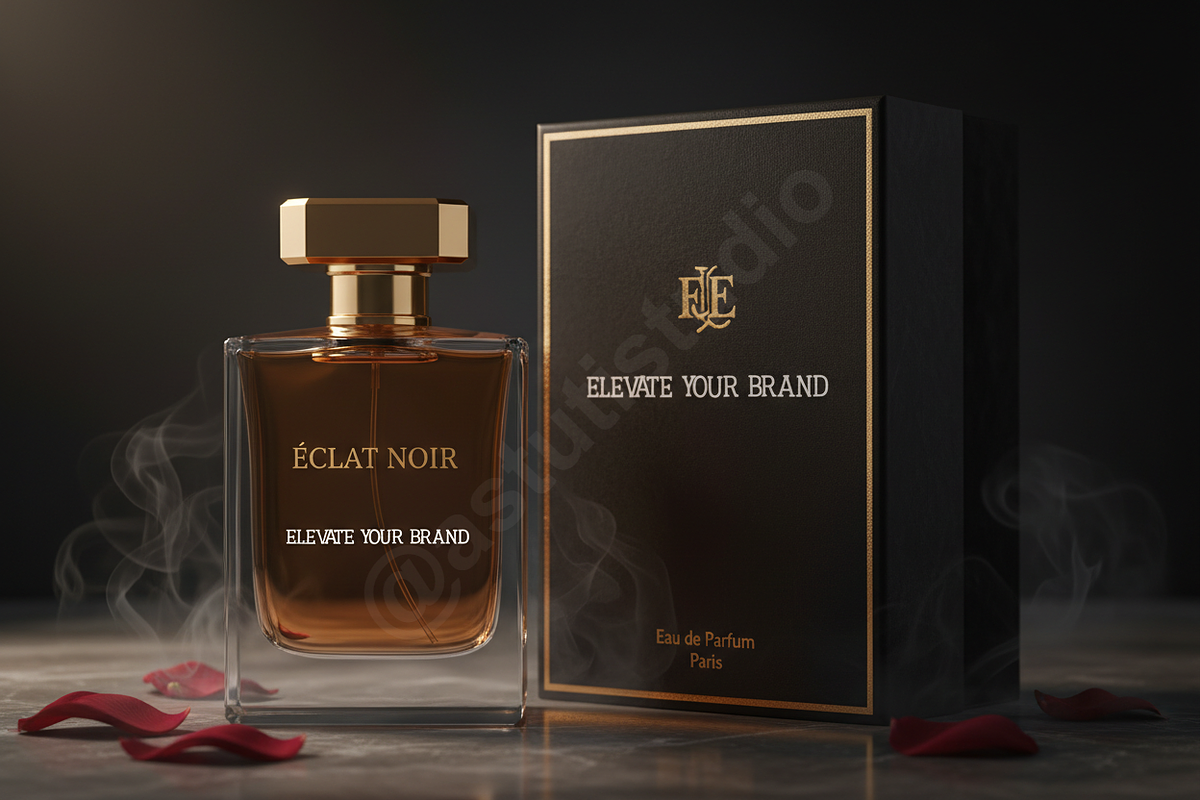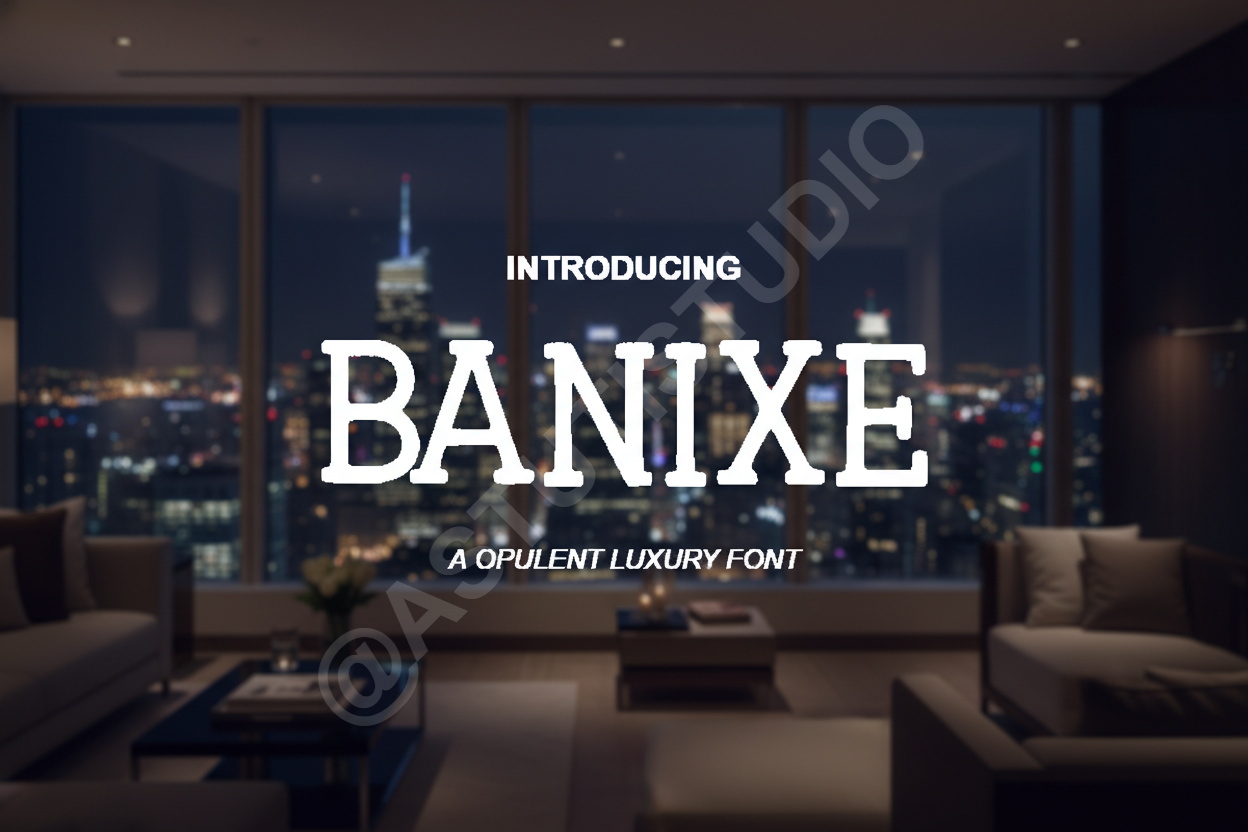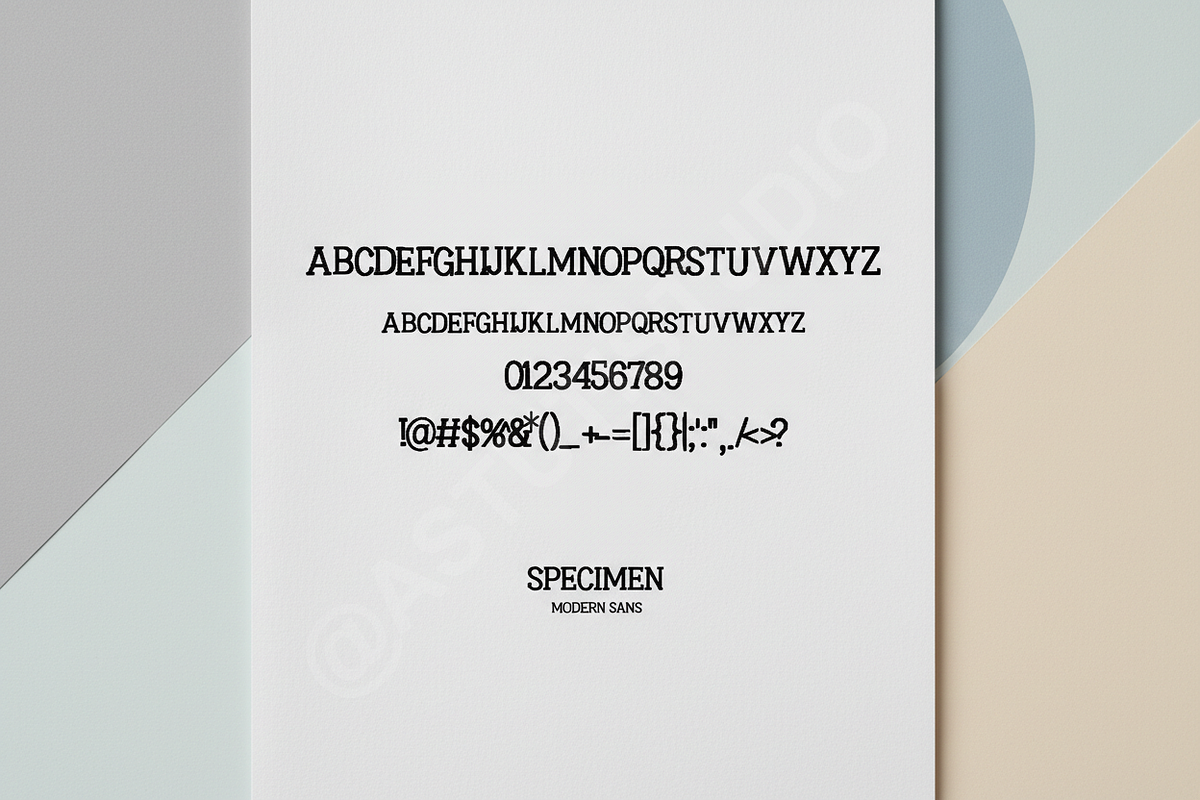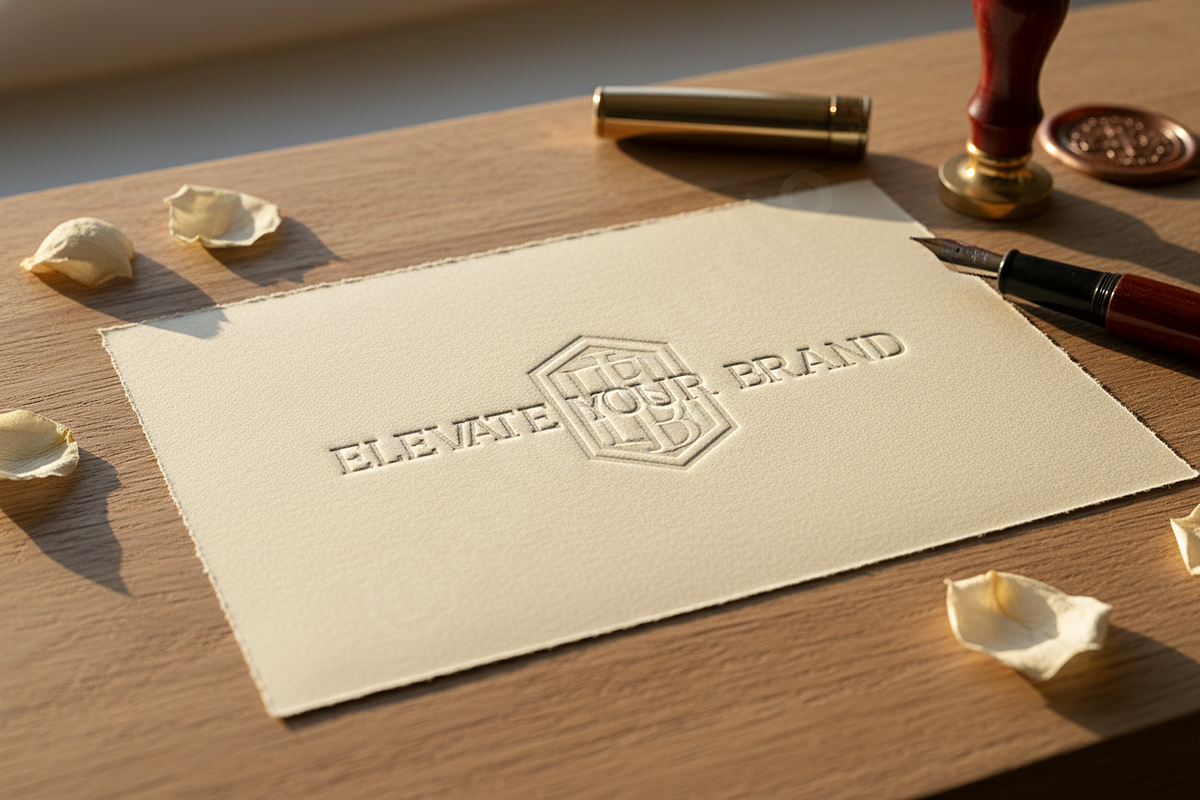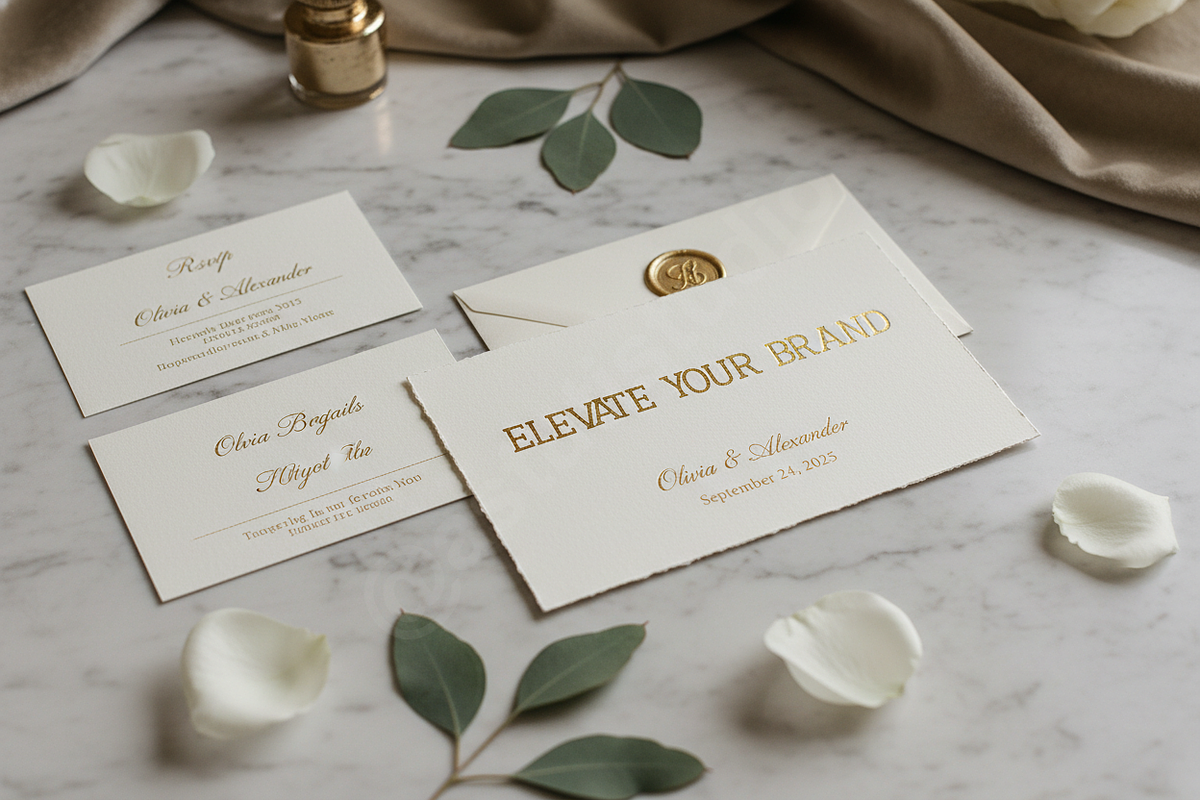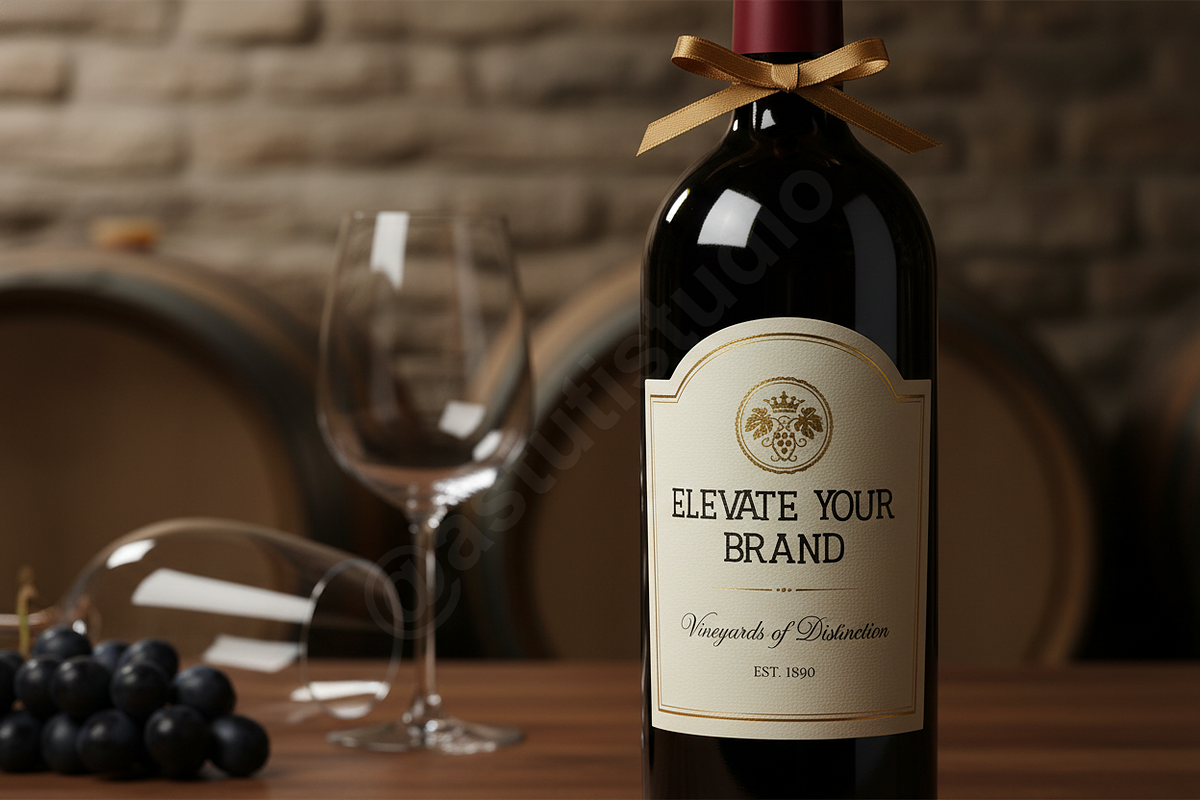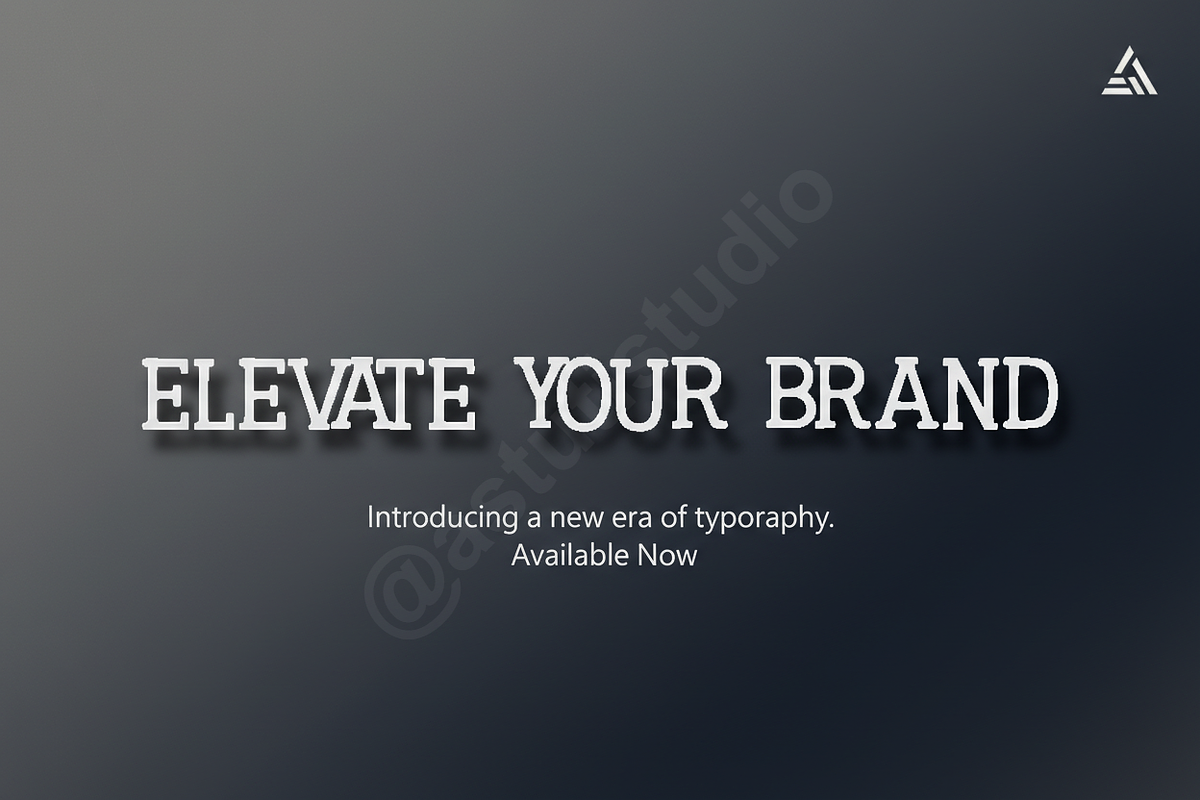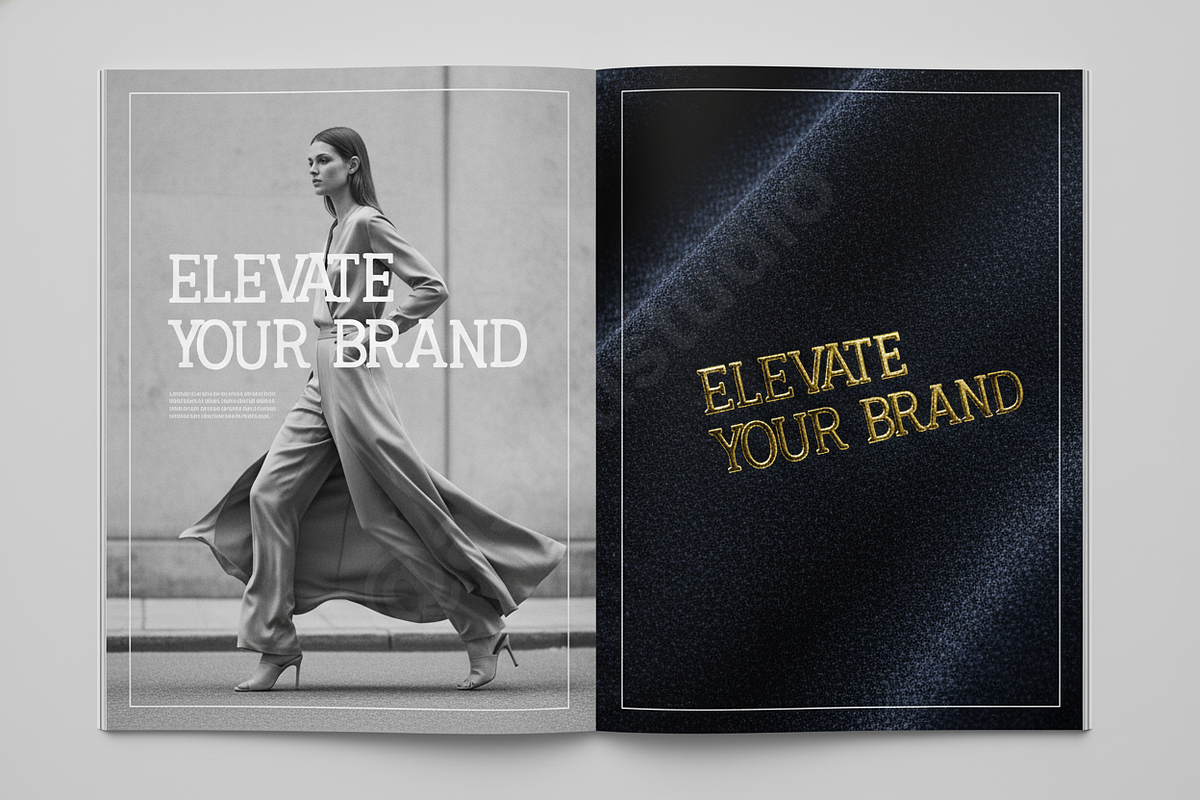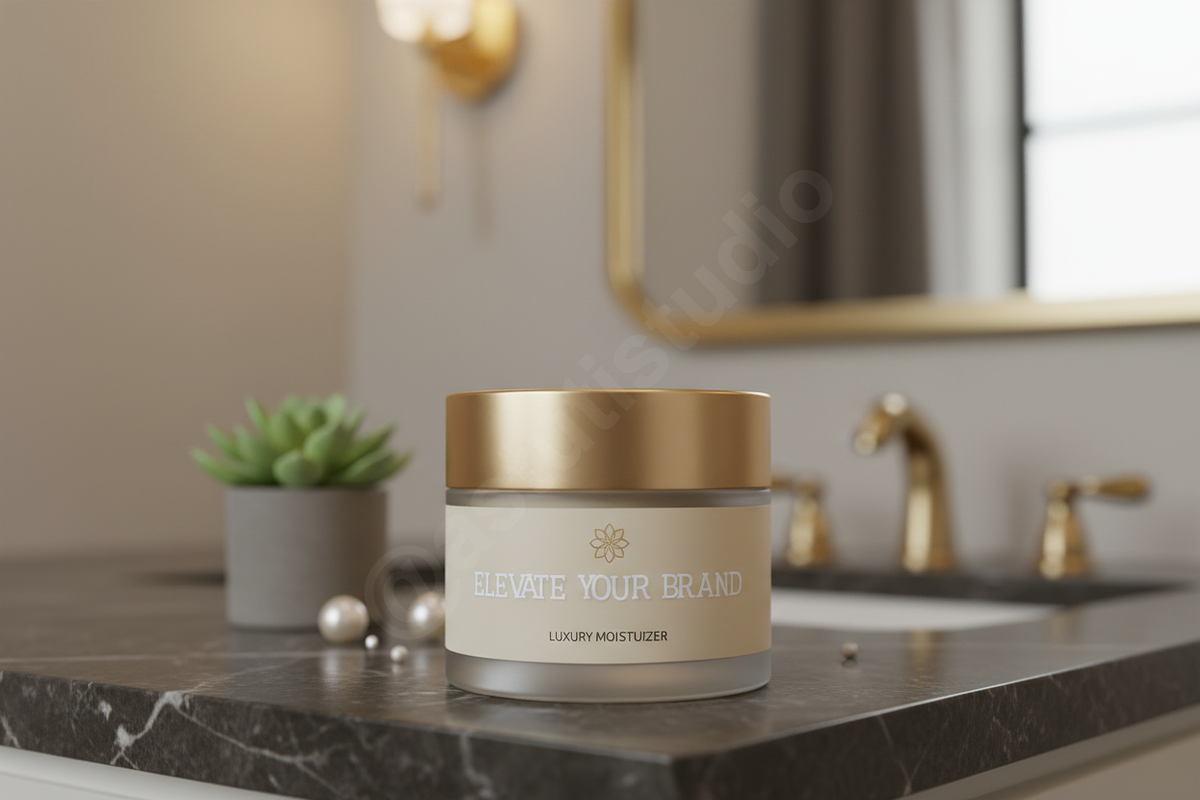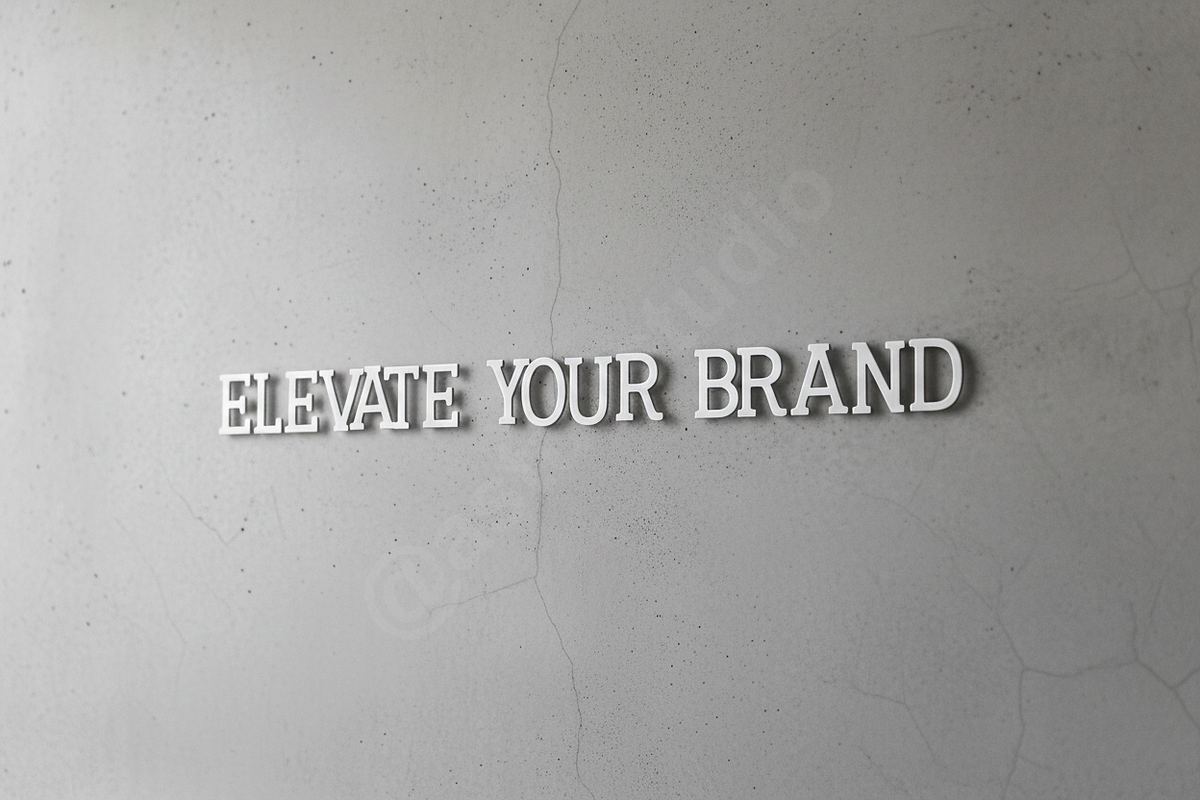
Banixe Elegant Luxury Serif Font - M
✨ INTRODUCING BANIXE ✨
Banixe Bold Vintage Display Font - Retro Branding Typeface, Modern Serif Logo Font, Header, Poster Design, T-Shirt Print, Commercial Use.
Elevate your designs with Banixe, a Vintage typeface carefully crafted to bring a professional touch to your creative projects.